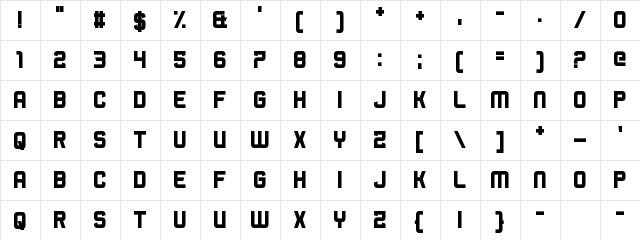
Bromine Cocktail Regular
Design Context for Bromine Cocktail Typeface
Bromine Cocktail offers clean, dependable letterforms without strong stylistic allegiance, making it a practical choice for designers who need flexibility.